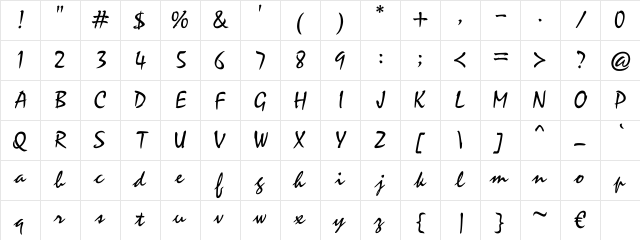
AR Script1 Bold Regular
Design Context for AR Script1 Bold
AR Script1 Bold flows with the natural rhythm of handwritten lettering, making it ideal for designs that call for warmth and personal expression. Its bold stroke weight gives it real presence on the page.
Font Pairing: Combine AR Script1 Bold with a simple geometric sans for maximum contrast - the tension between flowing curves and clean structure is a classic typographic pairing.
Pro Tip: Use AR Script1 Bold for short runs of text - names, titles, or taglines. Extended body copy in script faces tires the eye quickly.